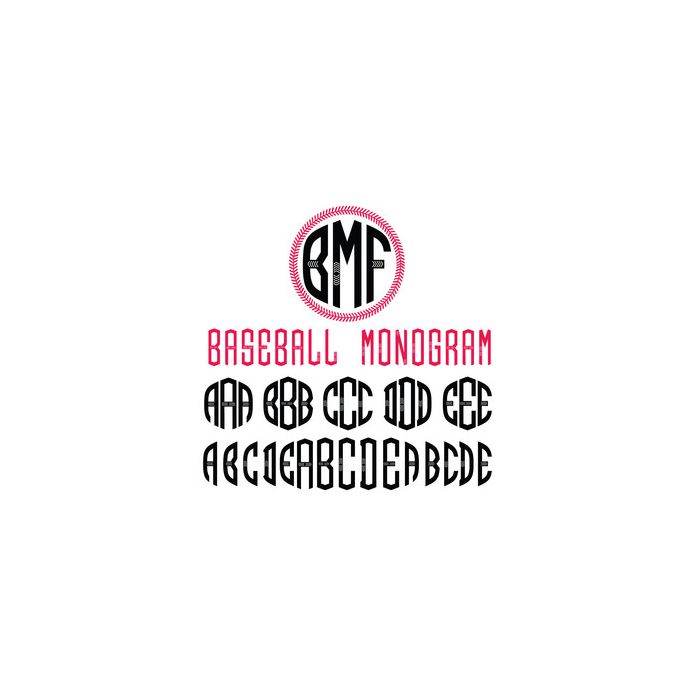
Baseball Circle Monogram Font with 3 frame styles. All letters can be accessed via glyphs. and are allocated to upper and lowercase with alternates. Frames are allocated to . , and ! keys.